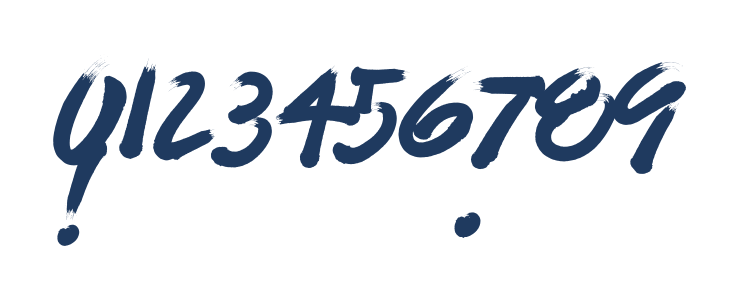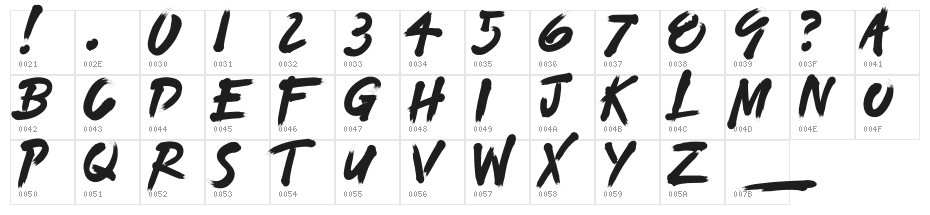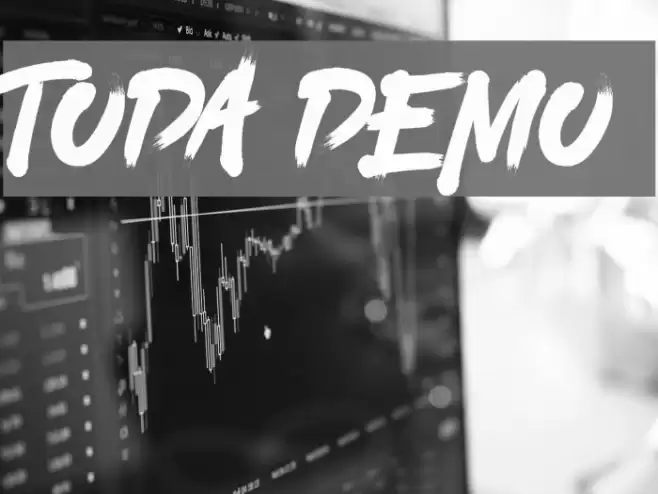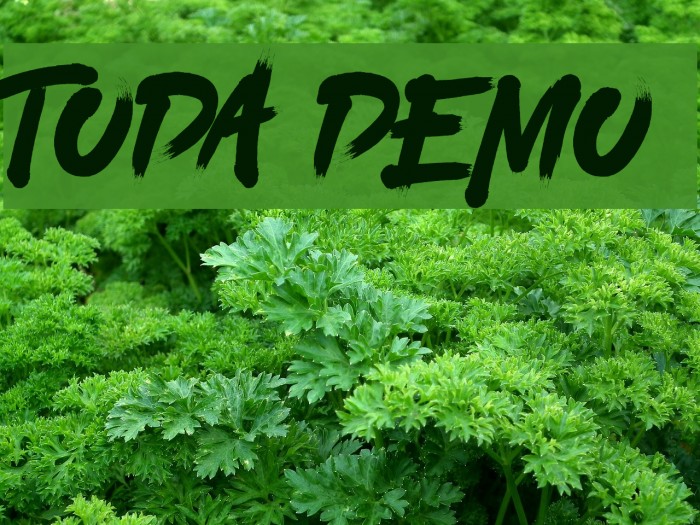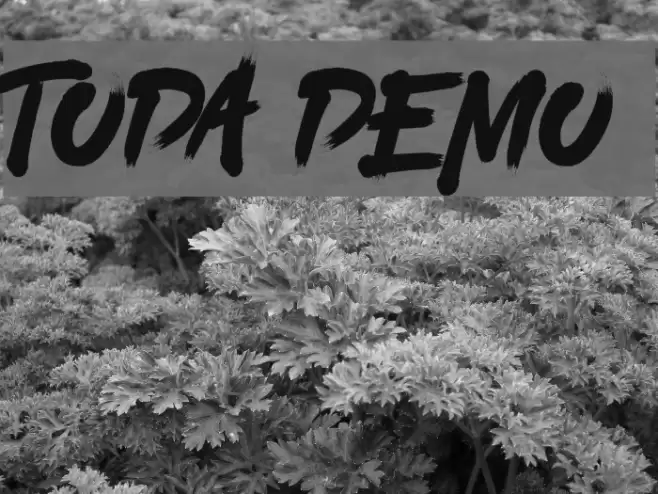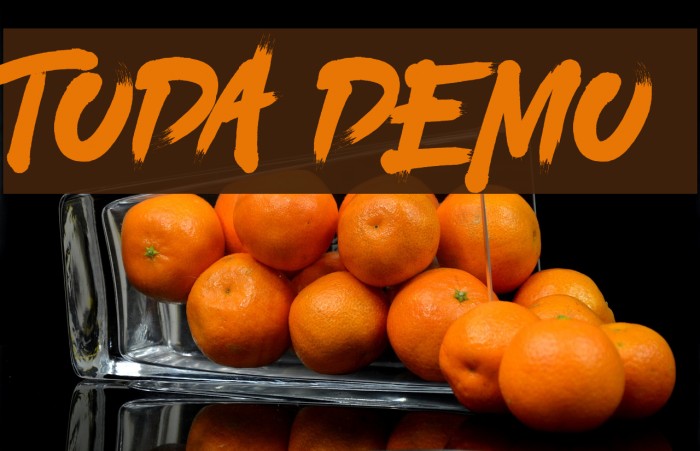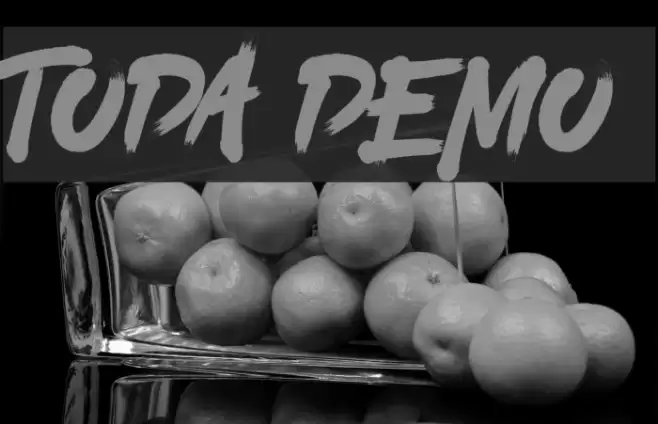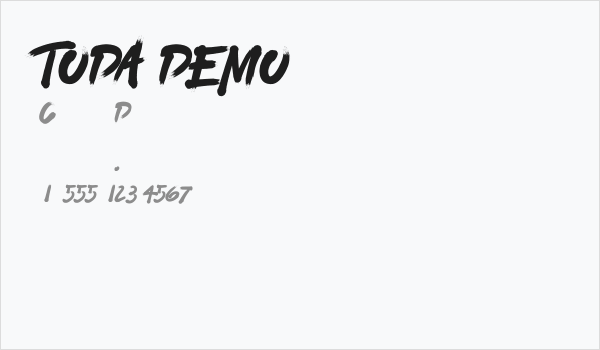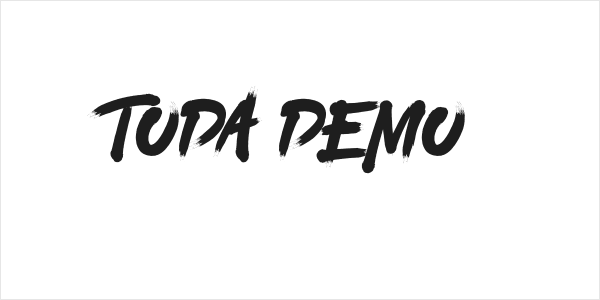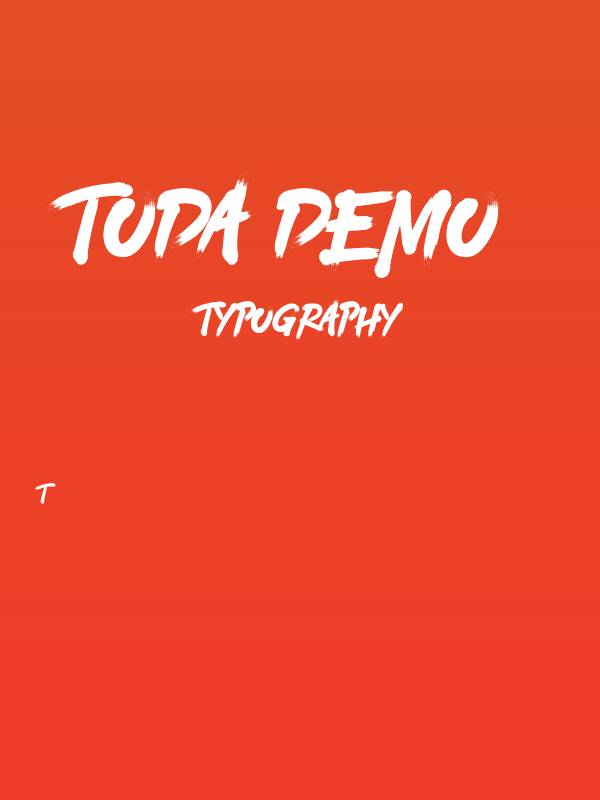
TODA DEMO Font
TODA DEMO Description
This font features a bold and dynamic brush style, characterized by its expressive and energetic strokes. The letters have a hand-painted appearance, with varying thicknesses that add a sense of movement and vitality. The uppercase letters are bold and commanding, while the numbers maintain the same energetic style. The font's unique brush texture gives it a raw and artistic feel, making it ideal for projects that require a personal and creative touch. The overall design is both modern and artistic, perfect for capturing attention and conveying a sense of creativity.